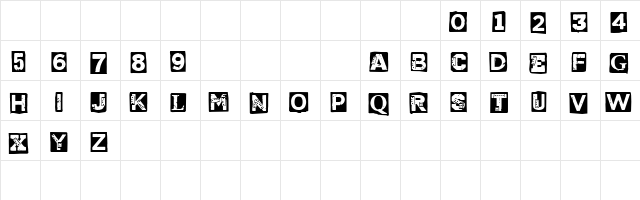
CF Punk vs Cyborg PERSONAL USE Regular
| Foundry | Cloutierfontes |
| Designer | Steve Cloutier |
Design Context for CF Punk vs Cyborg PERSONAL USE Typeface
CF Punk vs Cyborg PERSONAL USE is a composed and adaptable typeface that performs quietly and consistently across a wide range of design contexts.